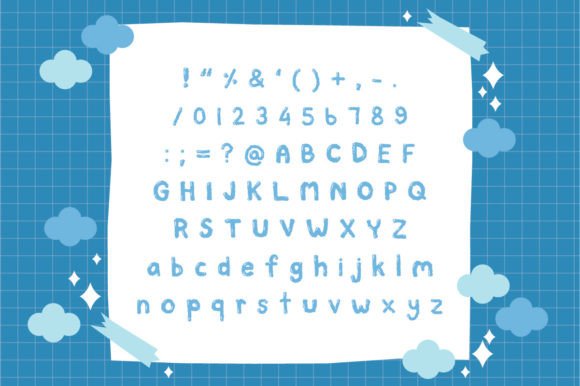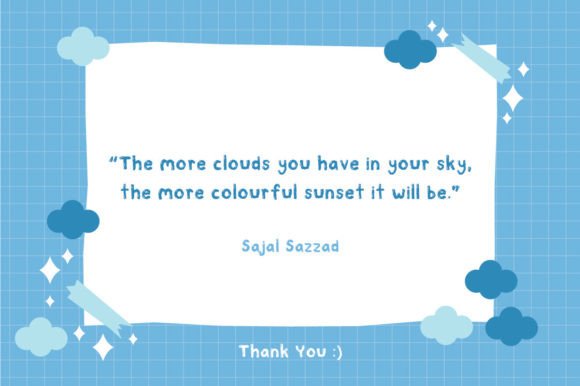
Introduction to Cloud Fuffy Font
As a designer, have you ever been in a rush to create a party invitation or a social media graphic, but struggled to find the perfect font to match the playful vibe of your project? I’ve been there too! That’s why I’m excited to introduce you to the Cloud Fuffy Font, a delightful display font that’s sure to bring a touch of youth and joy to your creative project.
This adorable font is more than just a design resource – it’s a game-changer for designers looking to add a personal touch to their work. With its transparent background and high-quality design, the Cloud Fuffy Font is perfect for creating eye-catching graphics that pop. And the best part? It’s completely free to download, making it a valuable asset for designers of all levels.
Key Features of Cloud Fuffy Font
- Unique, whimsical design perfect for creative projects and artistic expressions
- High-quality, vector-based font files for crisp and clear text rendering
- Comes with a transparent background, ideal for use on various design resources and backgrounds
- Perfect for use in graphic design, digital art, and other creative pursuits where a playful, cloud-inspired font is desired
Honest Review: Cloud Fuffy Font
I recently came across the Cloud Fuffy Font, a design resource that caught my eye. As a designer, I’m always on the lookout for high-quality fonts to add some flair to my creative projects. Let’s dive in and see if Cloud Fuffy Font lives up to its promise.
- High-quality design: Cloud Fuffy Font has a clean, modern aesthetic that’s perfect for a variety of creative projects.
- Transparent background: The font’s transparent background makes it easy to use on any background, giving you complete design freedom.
- Limited character set: Cloud Fuffy Font only includes a basic set of characters, which may not be suitable for complex or long-form text.
- No bold or italic styles: The font is only available in regular weight, which may limit its use in certain design scenarios.
Overall, I’m impressed with Cloud Fuffy Font, but it’s not without its limitations. If you’re looking for a high-quality, free font to add some whimsy to your creative project, Cloud Fuffy Font is definitely worth considering.
Tips for Getting the Most Out of Cloud Fuffy Font
Here are a few tips for getting the most out of the Cloud Fuffy Font: use it in conjunction with other design elements, experiment with different font sizes and colors, and consider using it in a creative project with a transparent background.
The Cloud Fuffy Font is ideal for a variety of creative projects, including graphic design, digital art, and marketing materials. Its high-quality design and transparent background make it easy to use in a variety of different contexts.